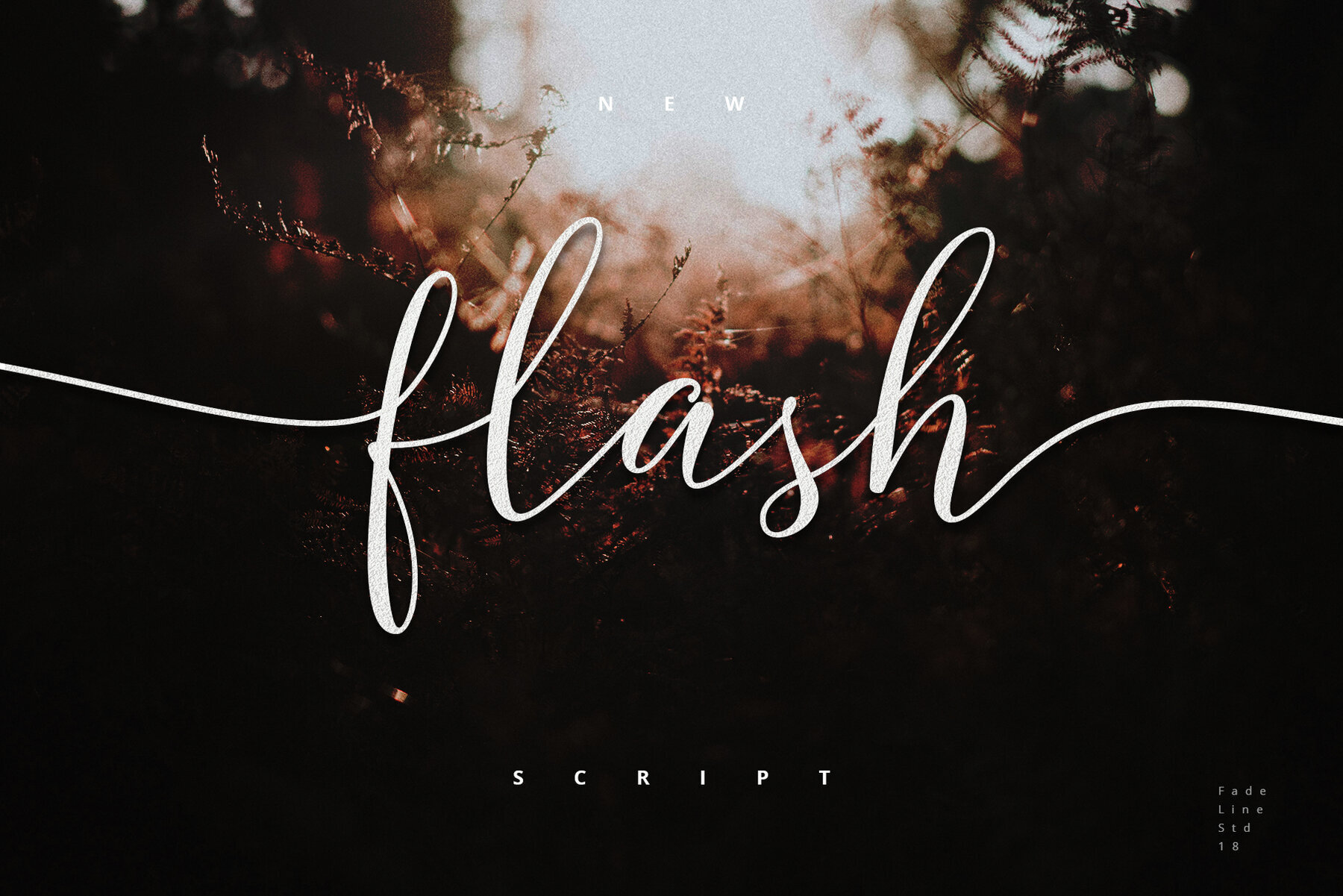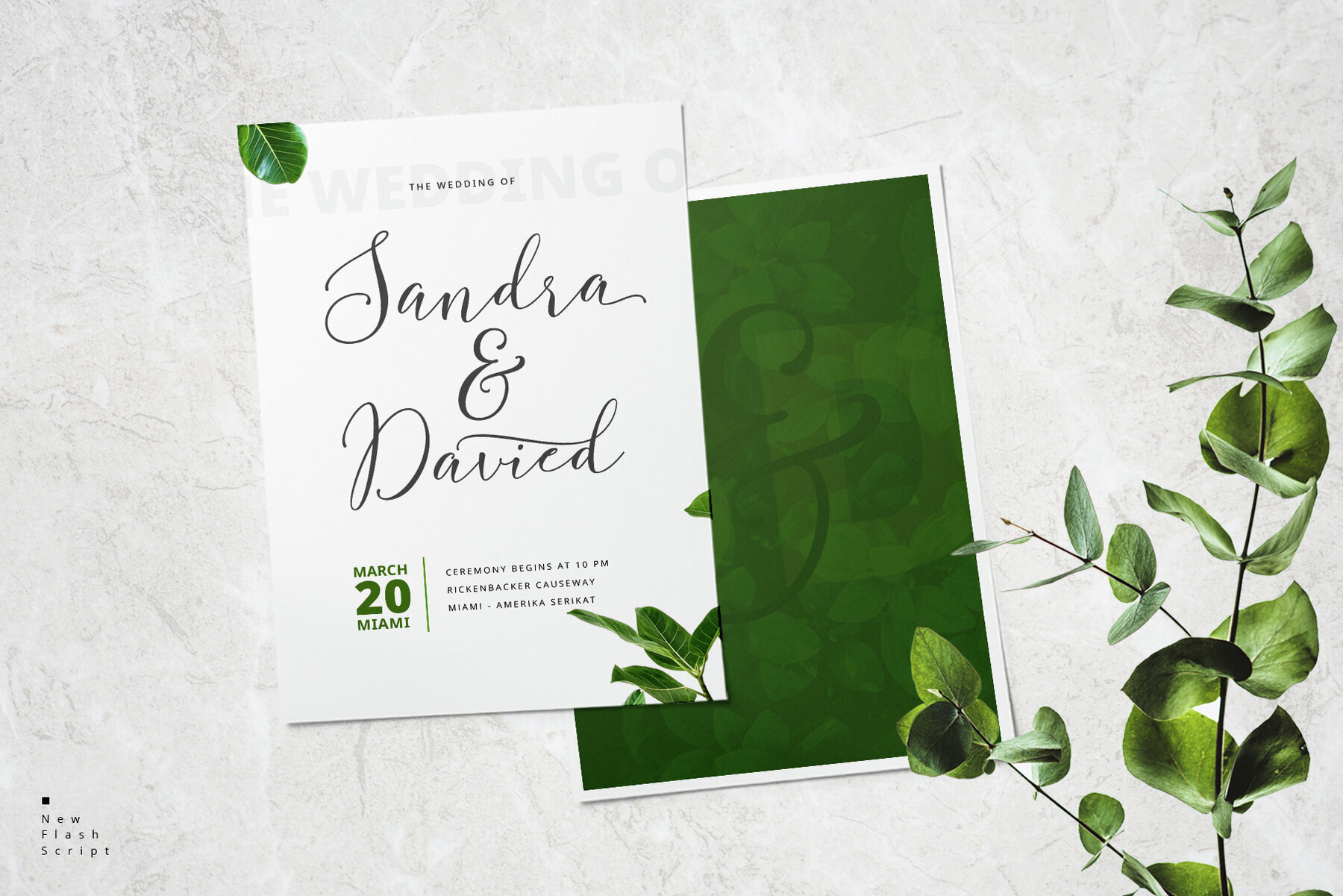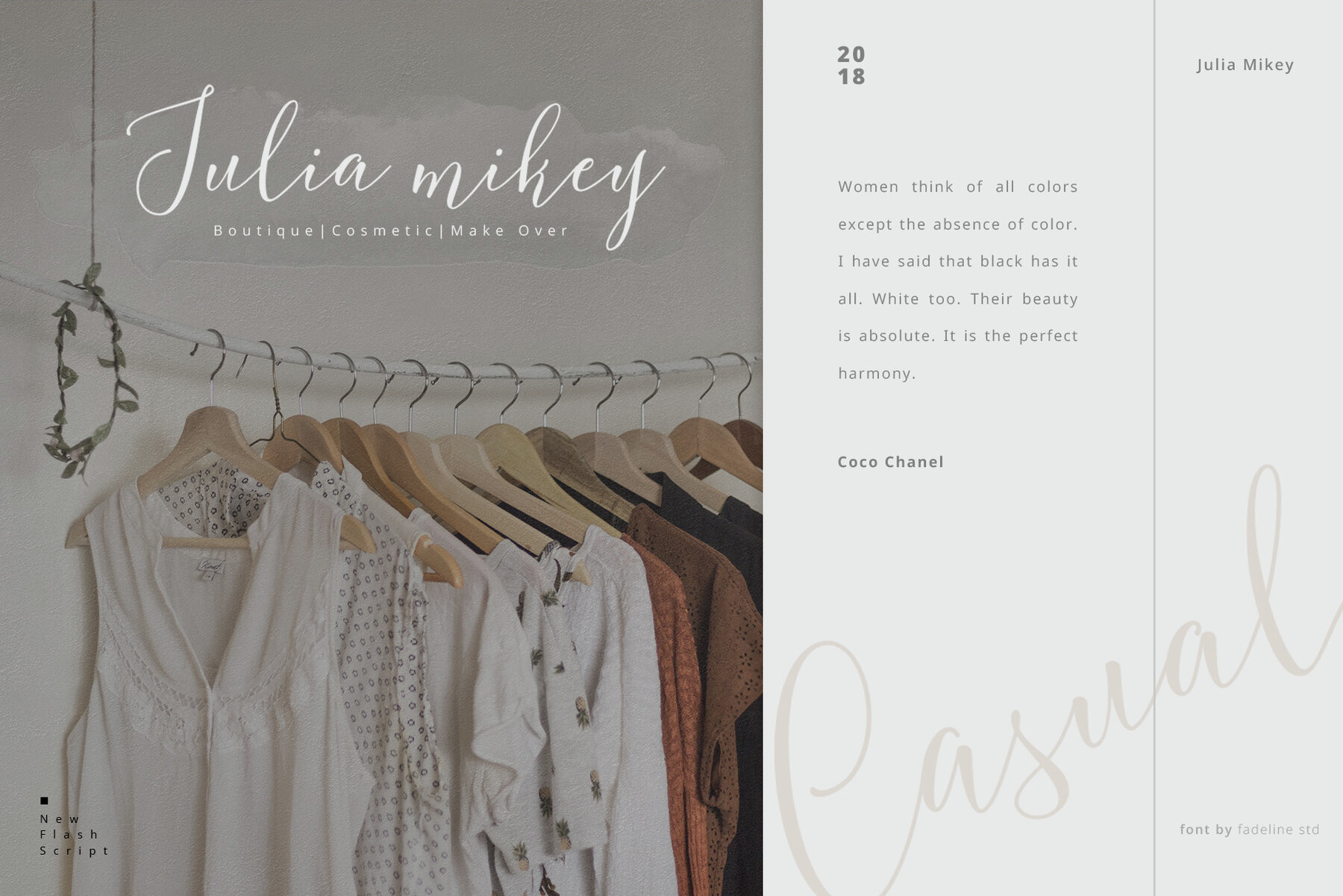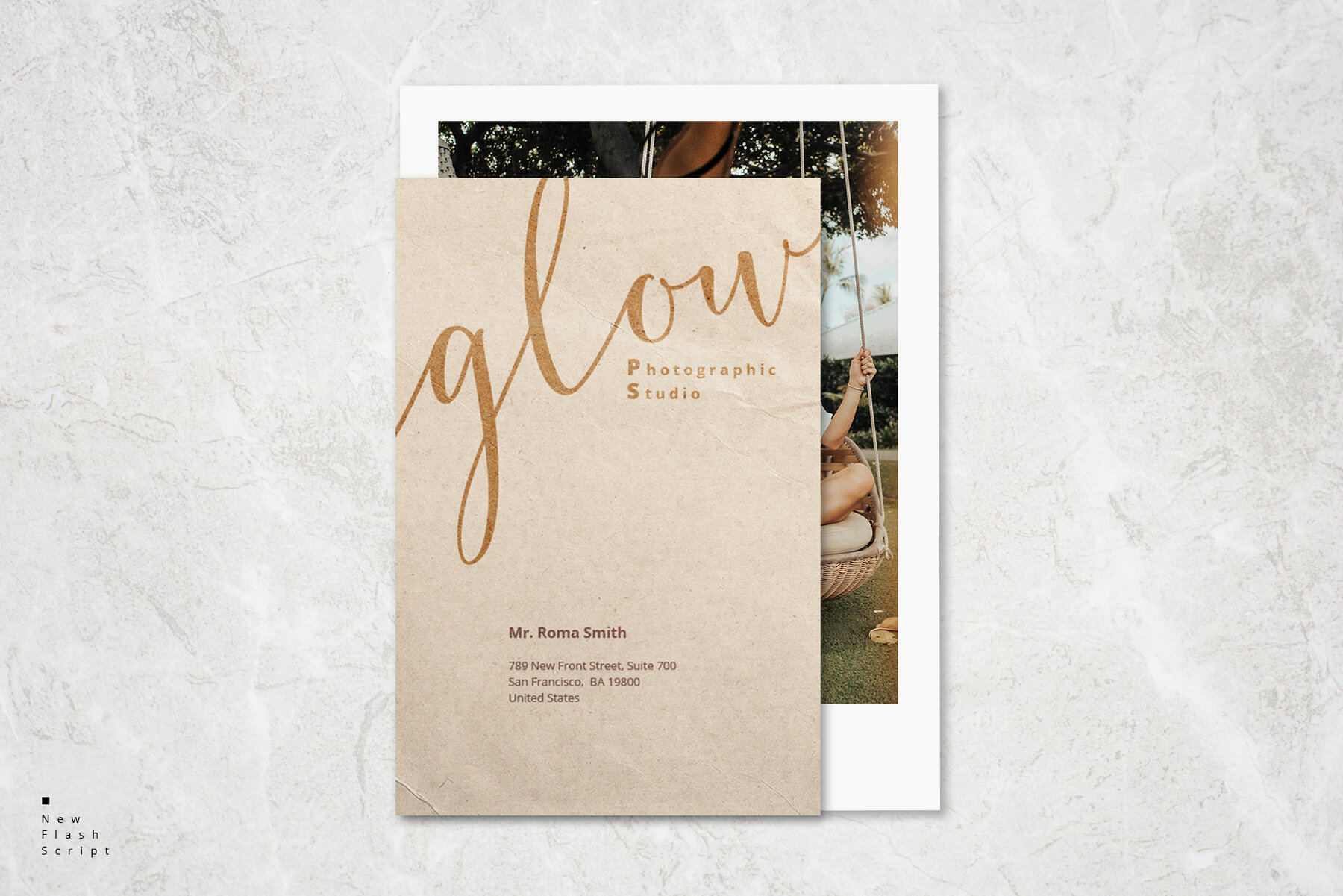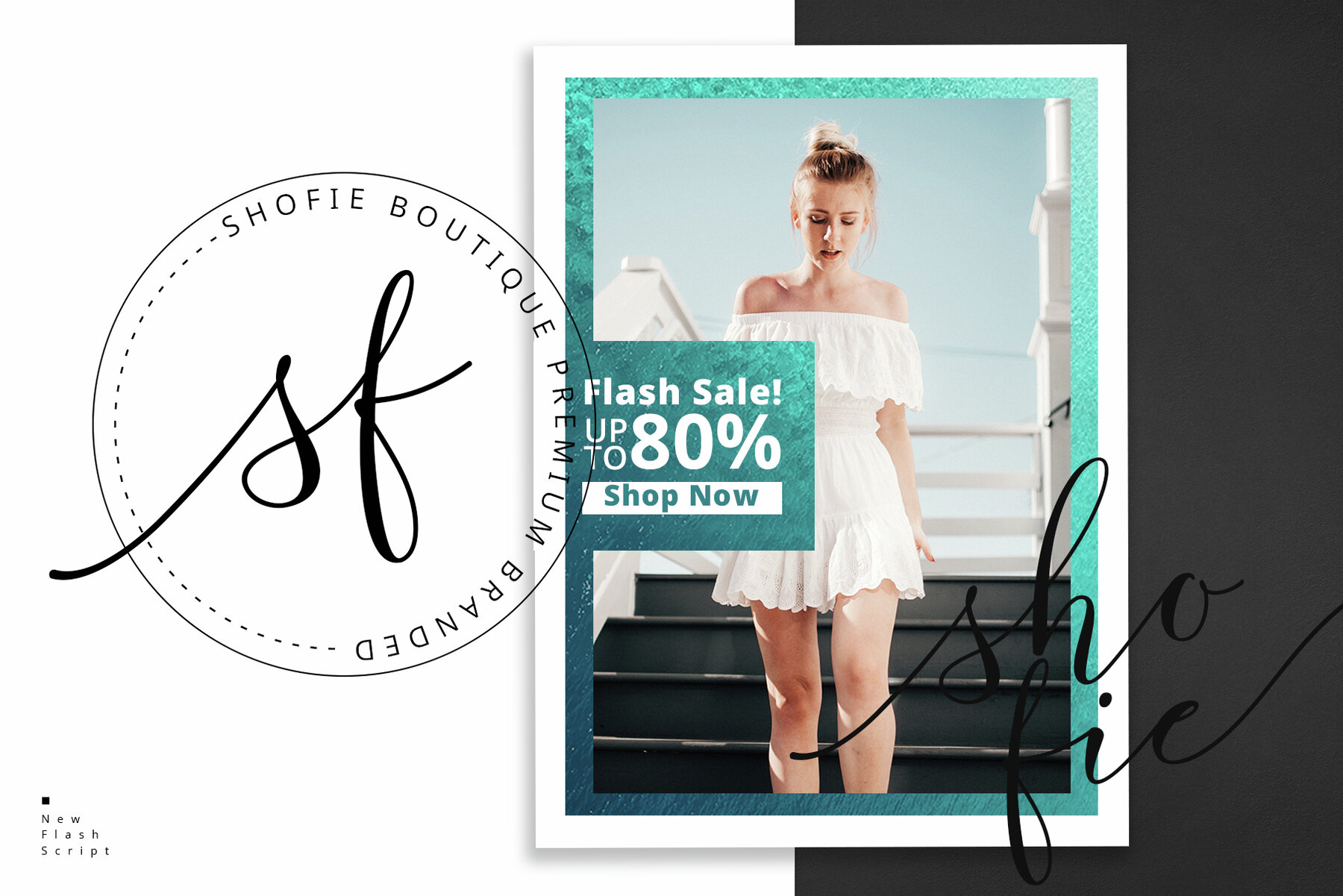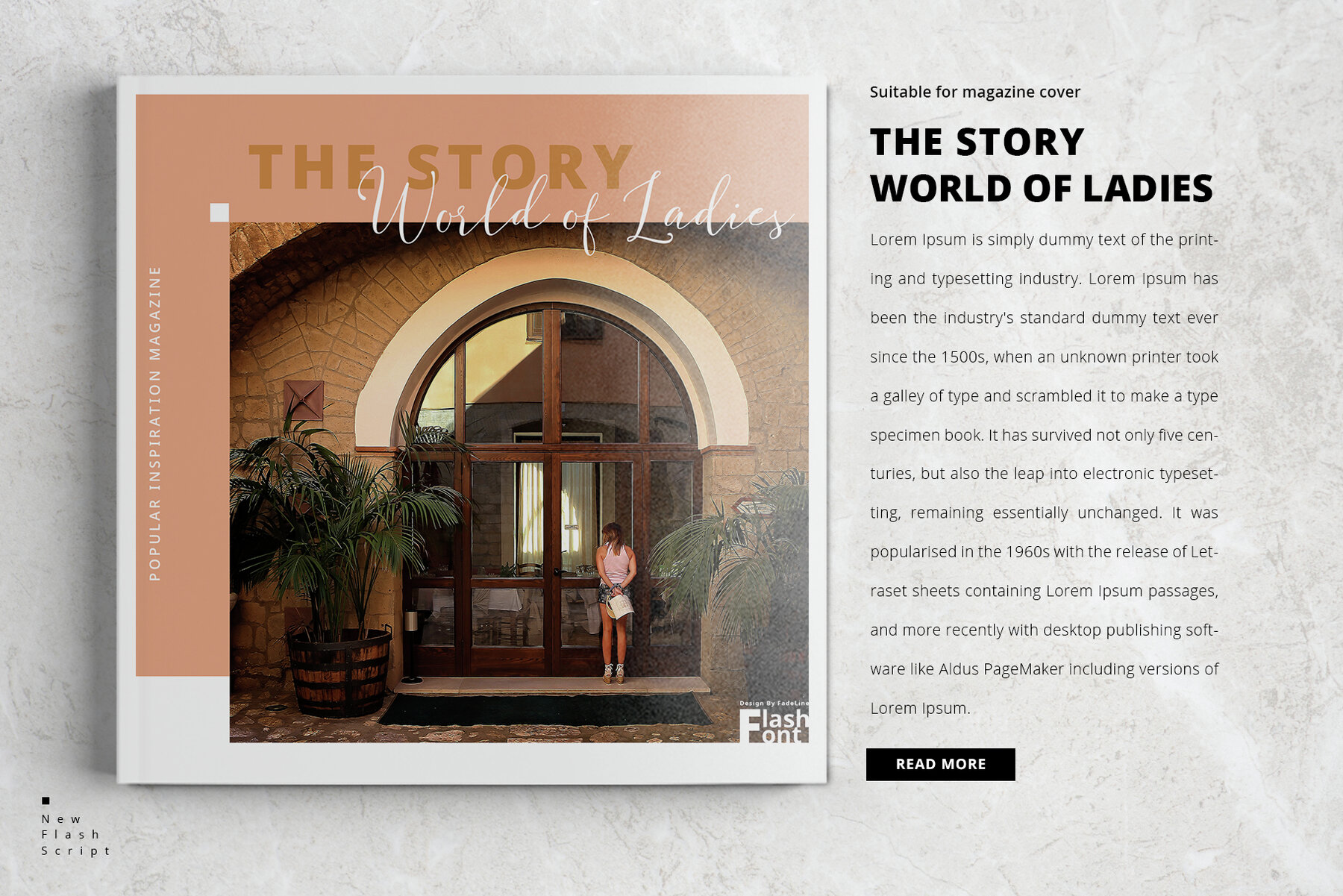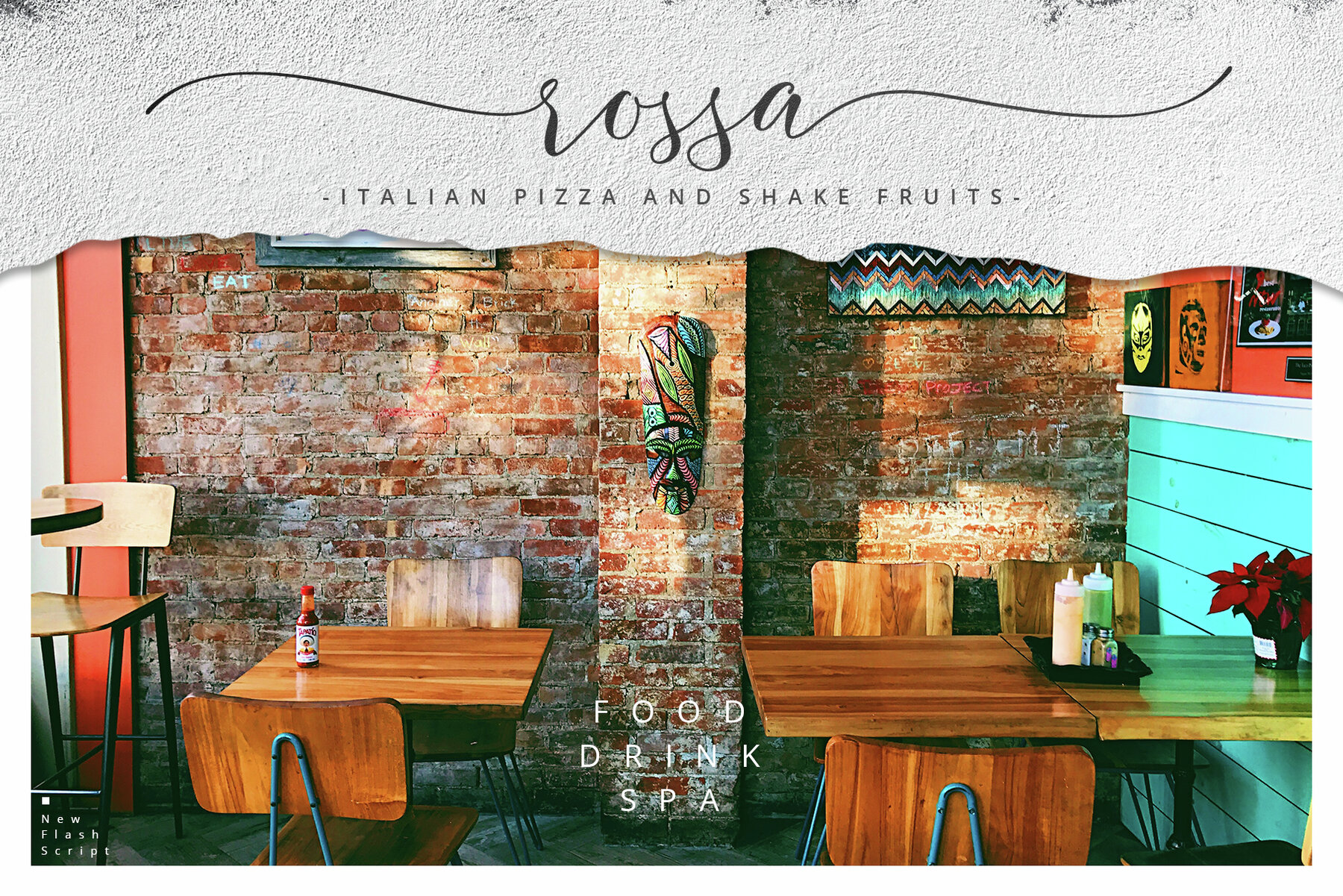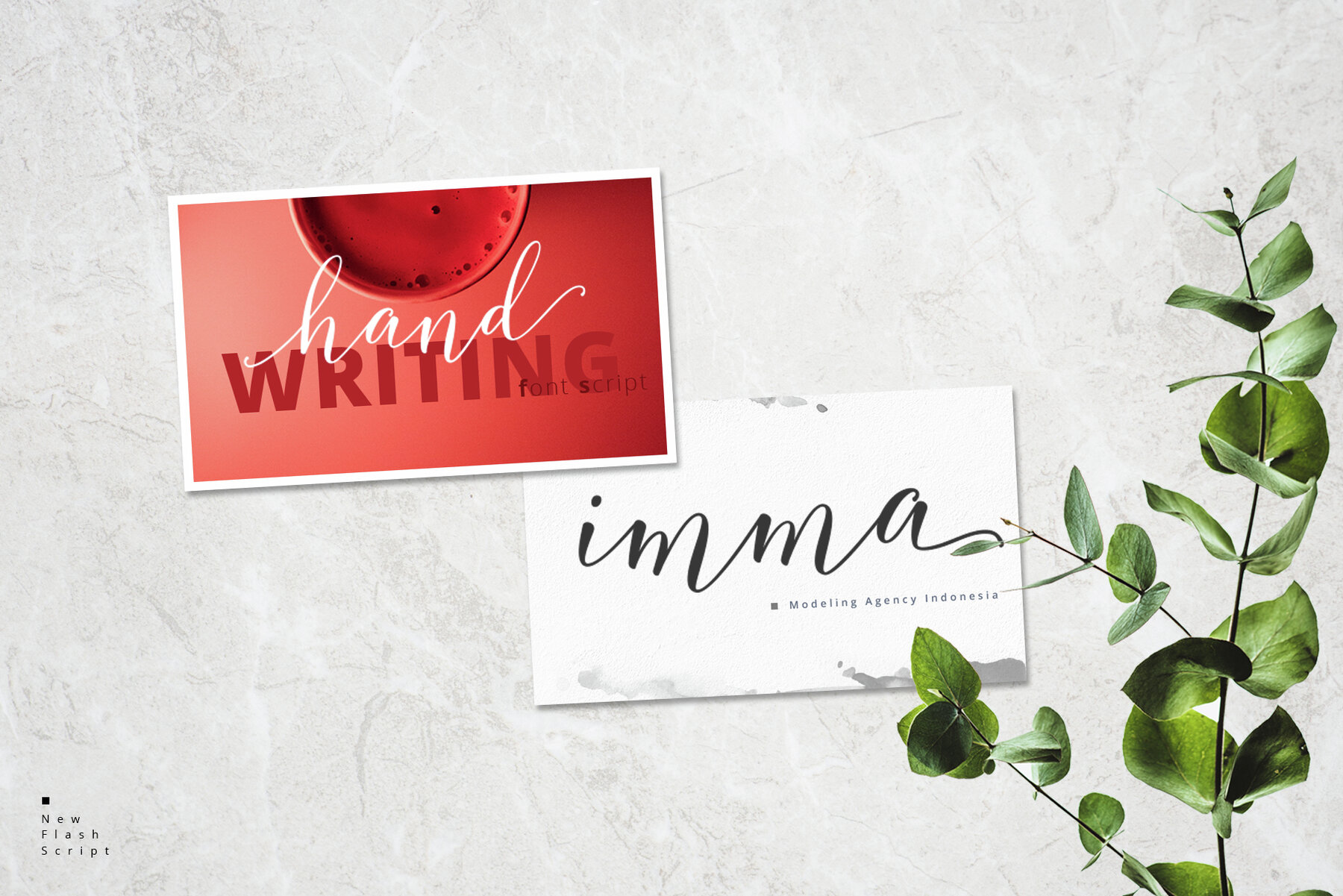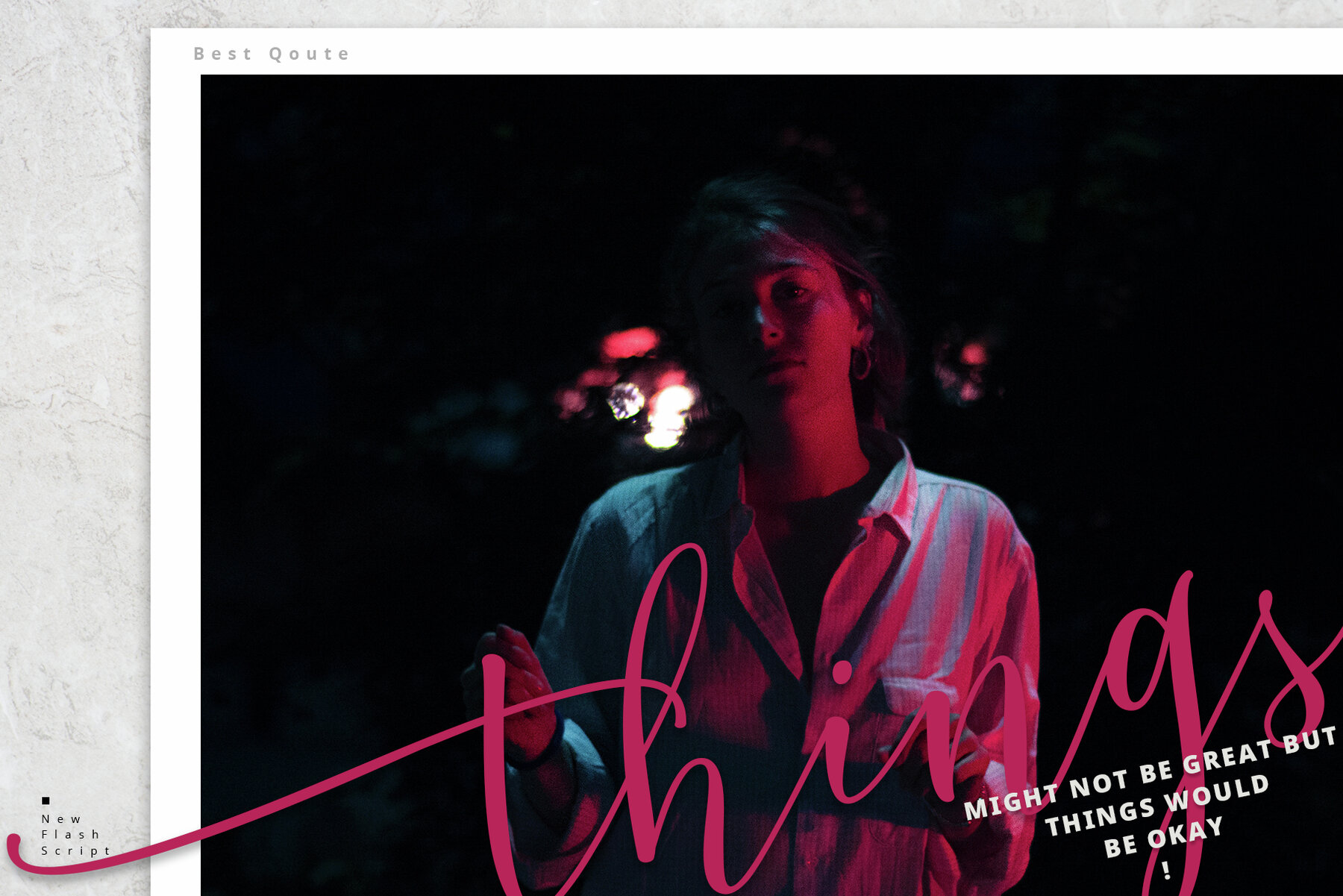
Flash Script Font
Flash Script
Discover the elegance of Flash Script, a modern script font from FadeLine Studio. Crafted with a charming slanted handmade style, this font brings out an aura of smooth, simple, and stylish handwriting. Ideal for any creative project, Flash Script's graceful design is perfect for adding a touch of sweet sophistication to your work. Its versatility shines whether used as a main font or a complementary pairing.Flash Script